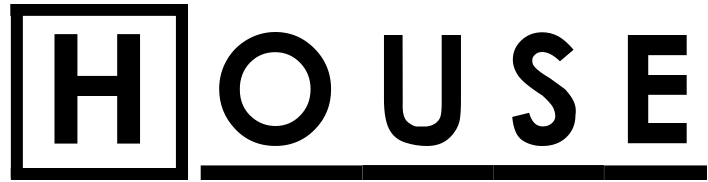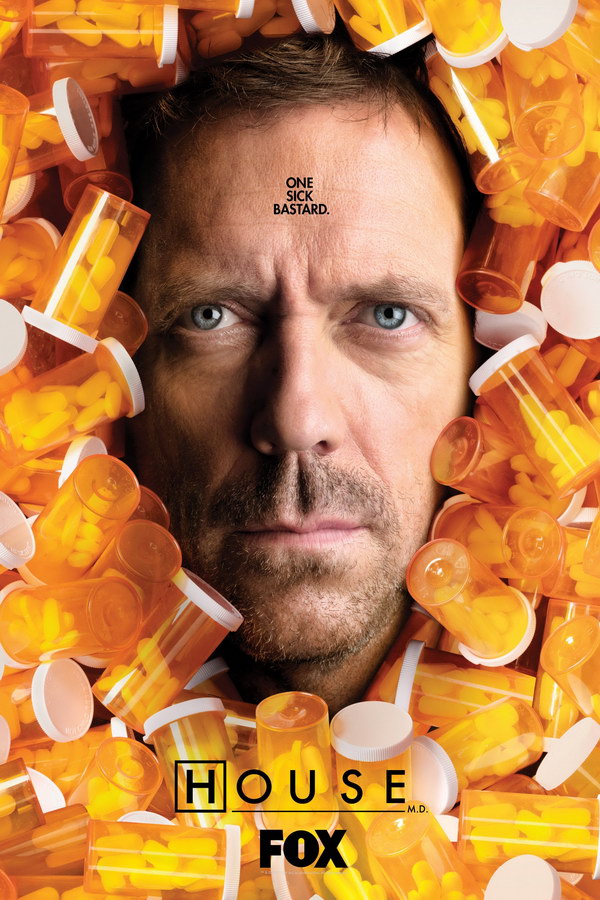
House Font
Fonts in UseHouse is a medical drama television series that follows the life of a brilliant but unconventional physician named Dr. Gregory House, who leads a team of diagnosticians at Princeton-Plainsboro Teaching Hospital while dealing with his struggles and addiction.
The House M.D. logo's design closely resembles the House M.D. font created by Cosmomouse, which features uppercase and lowercase letters. The font can be downloaded for free from the Fonts Used Section.